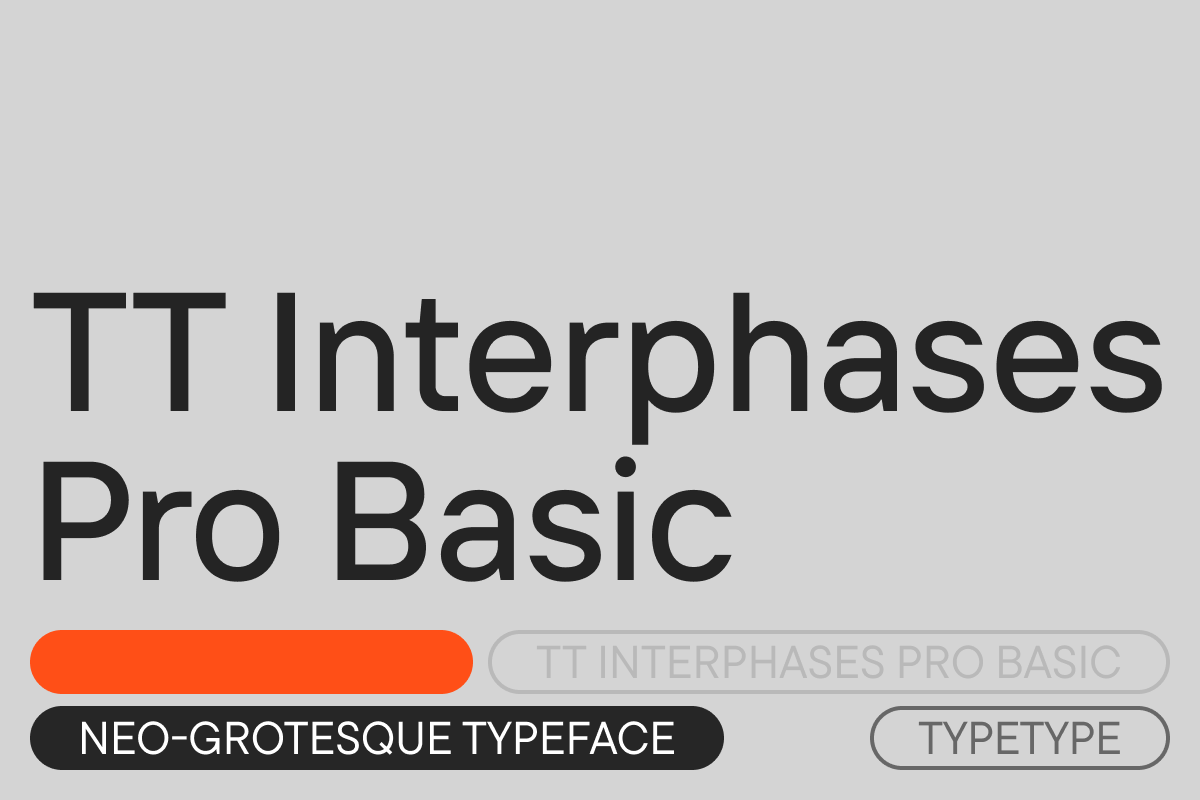
TT Interphases Pro Thin Italic
TT Interphases Pro is a Neo-Grotesque typeface specifically designed for working with interfaces. Text set in this font appears uniform thanks to its static proportions. A larger height of the lowercase characters improves screen legibility, while neutral glyph characteristics and squared forms of the round characters allow it to remain readable even in smaller point sizes. Closed apertures give the font a modern and distinctive look.